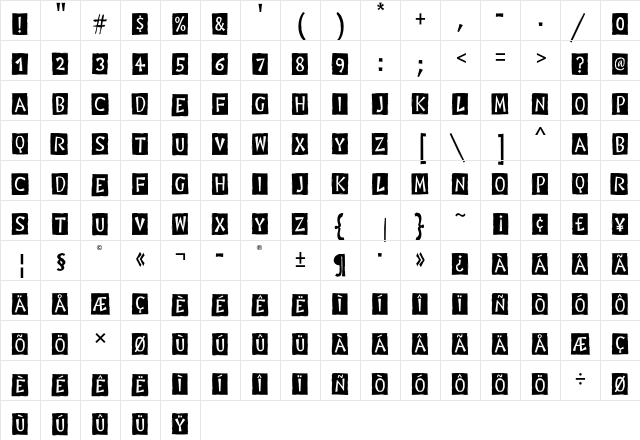
Digital Woodcuts ITC Std Black
| Designer | Timothy Donaldson |
Design Context for Digital Woodcuts ITC Std Typeface
Digital Woodcuts ITC Std taps into classic Western woodtype traditions — bold, characterful, and impossible to ignore.
A natural fit for craft spirits, ranch branding, rodeo events, and Americana-inspired design work.
Font Pairing: Combine Digital Woodcuts ITC Std with a simple slab or neutral sans — period-accurate companions reinforce the vintage feel without competing for attention.
Pro Tip: Use Digital Woodcuts ITC Std for short, impactful bursts of text — it shines in poster headlines and product names rather than extended copy.